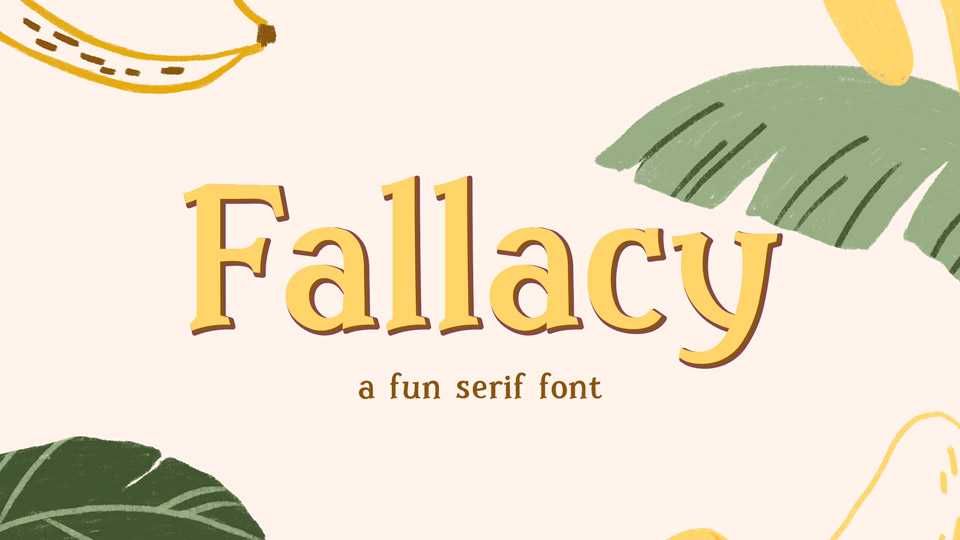
Download Fallacy font, a cute serif typeface with playful and fun character. Fallacy font perfectly fits for cards, craft, posters, party and holiday design and more.